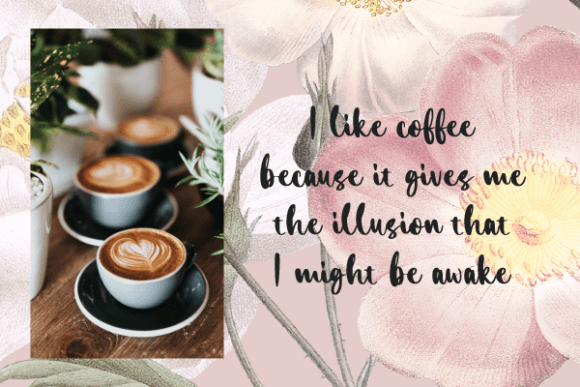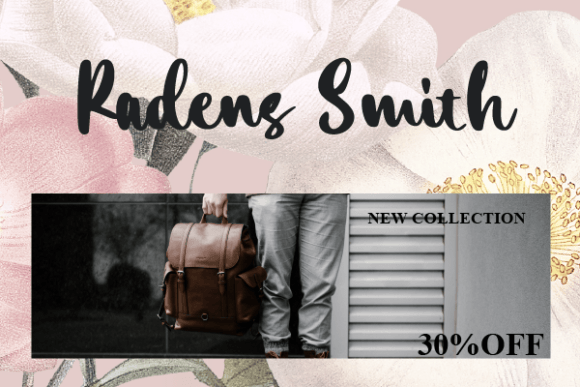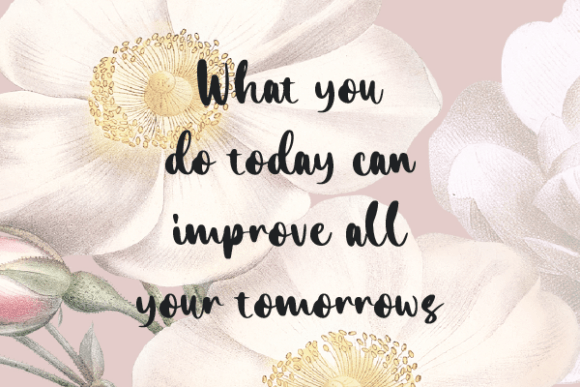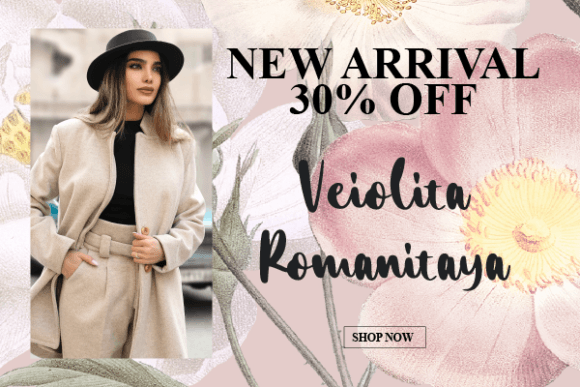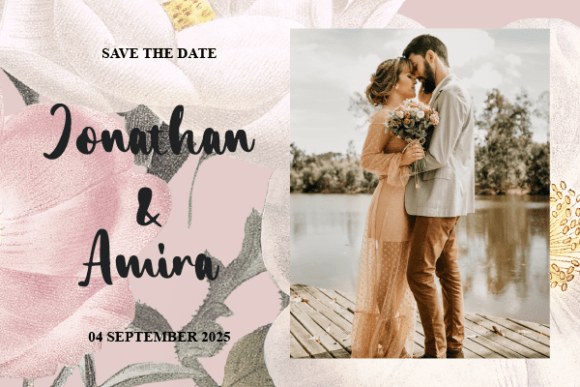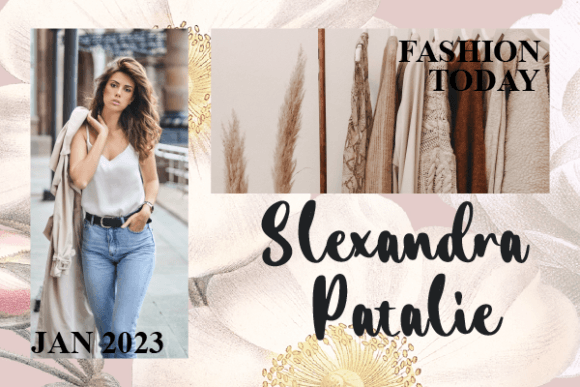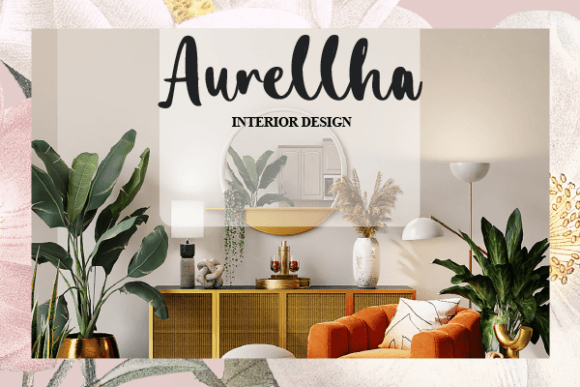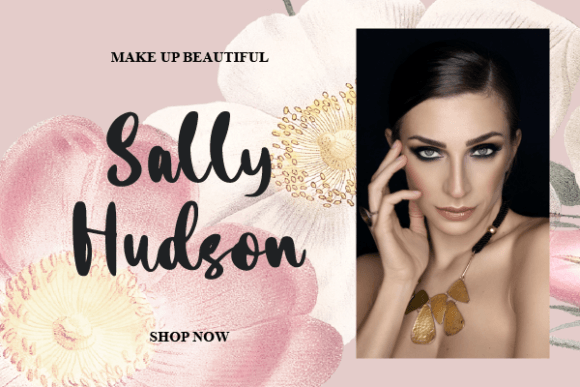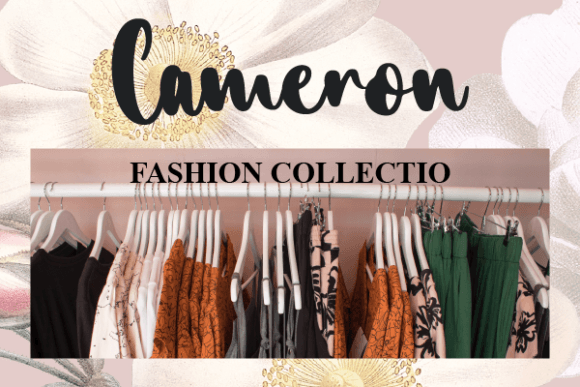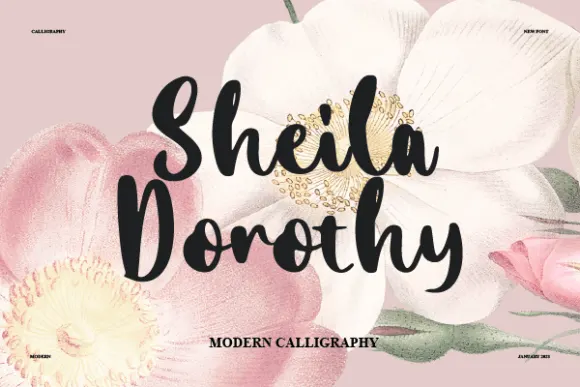
Sheila Dorothy
About Sheila Dorothy
Sheila Dorothy is a flowing handwritten font, described by an elegant touch, perfect for your favorite projects. Fall in love with its incredibly distinct and timeless style and use it to create spectacular designs!